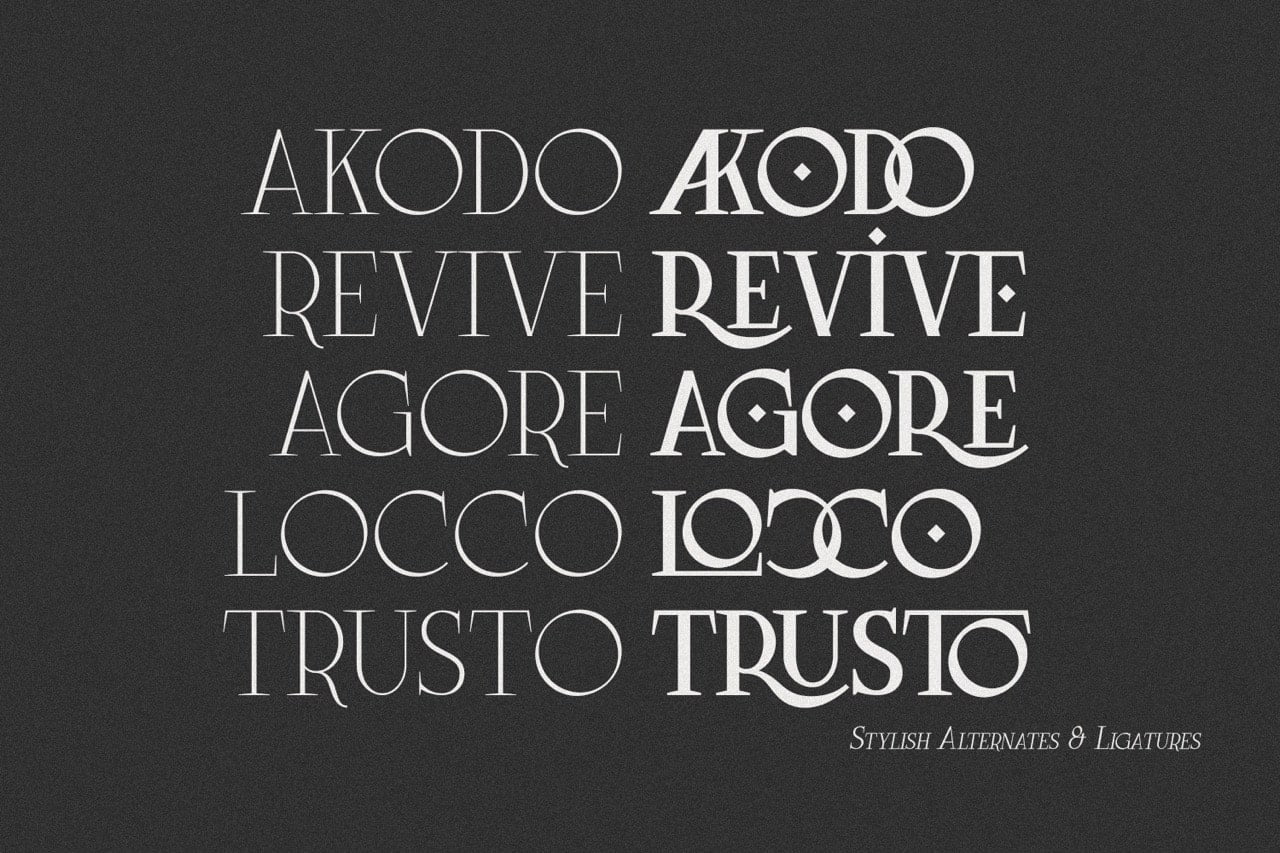
LittleMuffin, a lovely serif font family with a modern feel. The elegant design was created by fusing modern and vintage elements. When it comes to choosing the right typographic color for your project, the different weights give you a lot of options.
- 5 Weights
- 2 Styles (Regular and Italic)
- Stylistic Ligatures and Alternate Glyphs
Little Muffin Serif